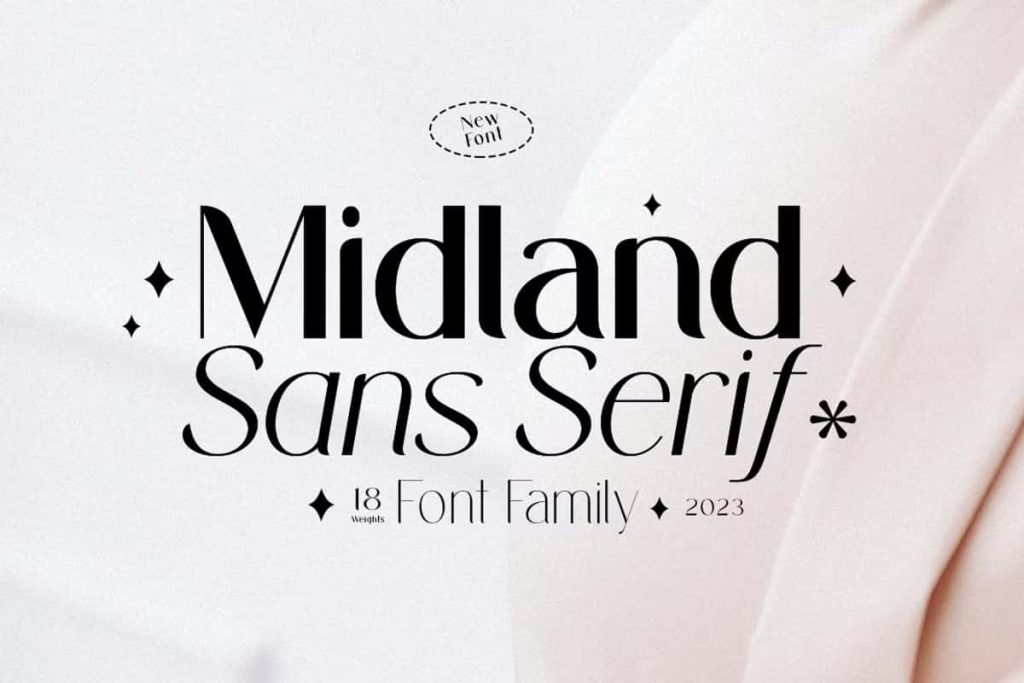
Midland Luxury Sans Serif Font – Elegant Typography for Modern and Sophisticated Designs
Midland Luxury Sans Serif Font is a refined and highly versatile typeface designed to bring elegance, clarity, and sophistication to a wide range of creative projects. Combining modern simplicity with luxurious aesthetics, this font delivers a timeless visual appeal that works beautifully across both digital and print media. Whether you are creating magazine layouts, wedding invitations, branding materials, promotional posters, or social media content, Midland Luxury Sans Serif Font provides the professional look needed to make every design stand out.
Carefully crafted with clean lines, balanced proportions, and a contemporary character, Midland offers exceptional flexibility for designers, marketers, and business owners. Its sophisticated appearance allows it to adapt seamlessly to different design styles, from minimalist and modern to luxurious and elegant. This versatility makes Midland an excellent choice for projects that require both beauty and functionality.
A Modern Sans Serif with Timeless Appeal
Typography trends come and go, but certain typefaces maintain their relevance through thoughtful design and balanced aesthetics. Midland Luxury Sans Serif Font is one of those fonts. Its modern structure creates a clean and polished appearance, while its subtle luxury-inspired details add character and distinction.
The font delivers excellent readability without sacrificing style, making it suitable for both large display text and smaller body copy. Whether featured prominently in headlines or used throughout marketing materials, Midland maintains a consistent and professional appearance that enhances visual communication.
Perfect for Magazine and Editorial Design
Magazine layouts require typography that captures attention while remaining easy to read. Midland Luxury Sans Serif Font excels in editorial environments thanks to its elegant structure and contemporary style. Designers can use it for magazine covers, feature headlines, article titles, pull quotes, and editorial branding.
Its clean appearance helps create organized layouts while allowing content to remain the focal point. The font’s premium character also adds sophistication to fashion publications, lifestyle magazines, beauty editorials, and luxury brand publications.
Popular Uses for Midland Luxury Sans Serif Font
- Magazine Covers and Editorial Layouts
- Wedding Invitations and Event Stationery
- Luxury Brand Identity Design
- Poster and Advertising Design
- Fashion and Beauty Branding
- Social Media Graphics
- Website Headers and Landing Pages
- Product Packaging Design
- Business Presentations
- Marketing and Promotional Materials
Create Stunning Wedding Invitations and Event Designs
Midland Luxury Sans Serif Font is an excellent choice for wedding invitations and formal event stationery. Its elegant appearance helps establish a sophisticated atmosphere while maintaining a clean and modern presentation. The font complements both traditional and contemporary wedding themes, making it highly adaptable for different styles and preferences.
Designers can use Midland for invitation titles, ceremony programs, menu cards, RSVP cards, and event signage. Its refined design helps create memorable stationery that feels luxurious and professionally crafted.
Build Strong and Sophisticated Brand Identities
Branding requires consistency, personality, and visual impact. Midland Luxury Sans Serif Font helps businesses establish a strong identity through its modern and premium appearance. The font communicates professionalism, confidence, and quality, making it ideal for companies seeking a polished and trustworthy image.
Luxury brands, fashion labels, beauty businesses, creative agencies, and lifestyle companies can use Midland to create logos, packaging, advertising campaigns, and marketing materials that reflect their brand values. Its versatility allows it to perform equally well across print and digital platforms, ensuring a cohesive visual experience.
Design Eye-Catching Posters and Promotional Materials
Posters require typography that attracts attention instantly, and Midland Luxury Sans Serif Font delivers the visual impact needed to make a strong impression. Its clean letterforms and elegant proportions help create bold headlines and engaging promotional content without appearing overwhelming.
Whether promoting events, products, services, or brand campaigns, Midland provides the clarity and sophistication necessary for effective communication. The font allows designers to create balanced layouts that are both visually appealing and highly readable.
Enhance Digital and Social Media Content
In today’s competitive digital landscape, typography plays an essential role in capturing audience attention. Midland Luxury Sans Serif Font performs exceptionally well across social media platforms, websites, digital advertisements, and online branding materials.
Its clean structure ensures readability on all screen sizes while maintaining an elegant and professional appearance. Content creators and marketers can use Midland to develop cohesive visual branding, create attractive promotional graphics, and establish a strong online presence.
Versatile for Print and Web Applications
One of Midland’s greatest strengths is its ability to perform seamlessly across multiple design environments. From printed brochures and packaging to websites and mobile applications, the font retains its visual quality and readability. This flexibility allows designers to use a single typeface across entire branding systems while maintaining consistency and professionalism.
The font’s timeless style ensures that projects remain relevant and visually appealing long after current design trends change. This makes Midland a valuable long-term investment for designers and businesses alike.
Why Choose Midland Luxury Sans Serif Font?
Midland Luxury Sans Serif Font combines modern elegance, exceptional versatility, and professional quality into a single typeface. Its clean design, luxury-inspired character, and outstanding readability make it suitable for a broad range of creative applications. Whether you are designing magazine layouts, wedding invitations, branding materials, posters, websites, or social media graphics, Midland provides the sophistication needed to elevate your work.
For designers seeking a timeless sans serif font that balances simplicity with luxury, Midland Luxury Sans Serif Font offers the perfect solution. Its adaptability, refined aesthetics, and professional performance make it an excellent addition to any typography collection and a reliable choice for projects that demand style, clarity, and lasting impact.